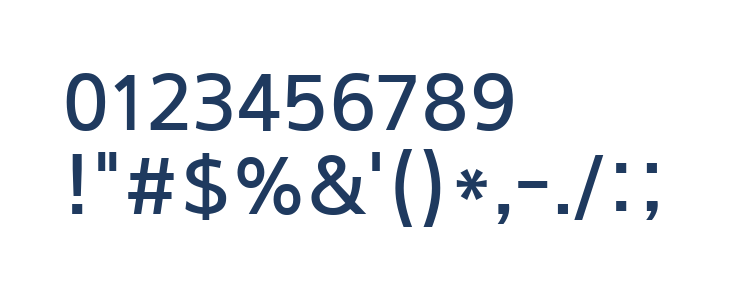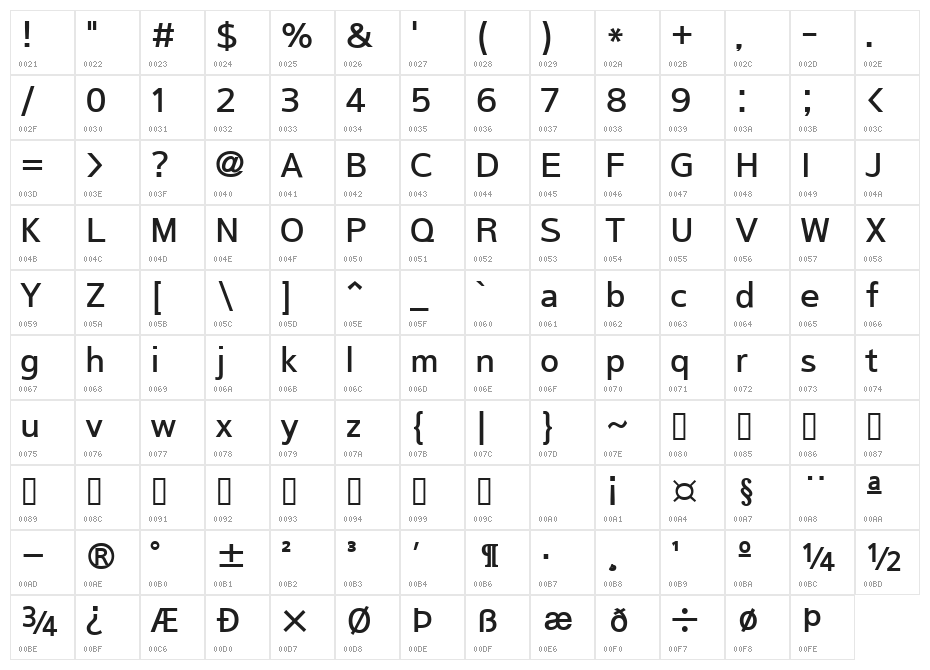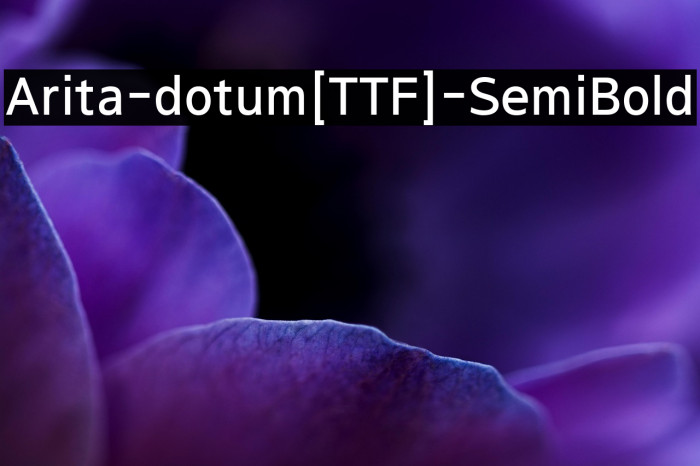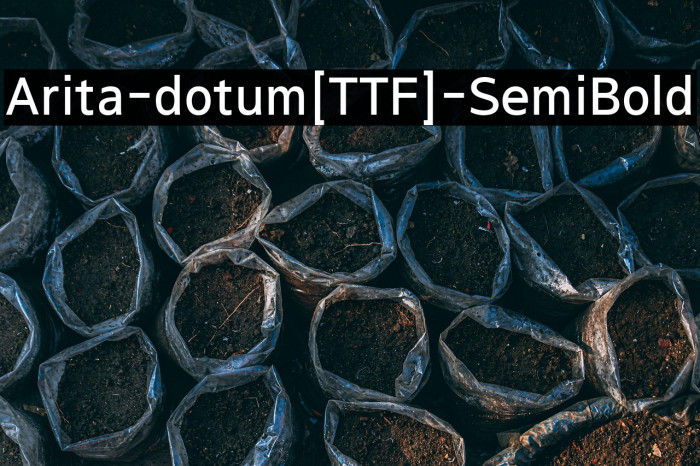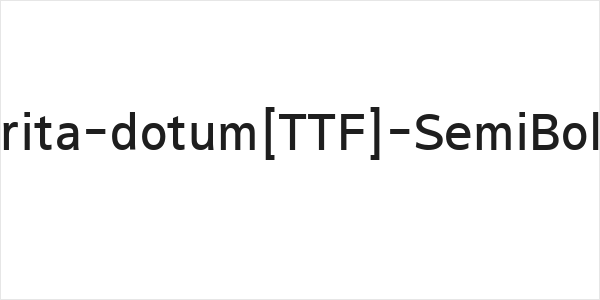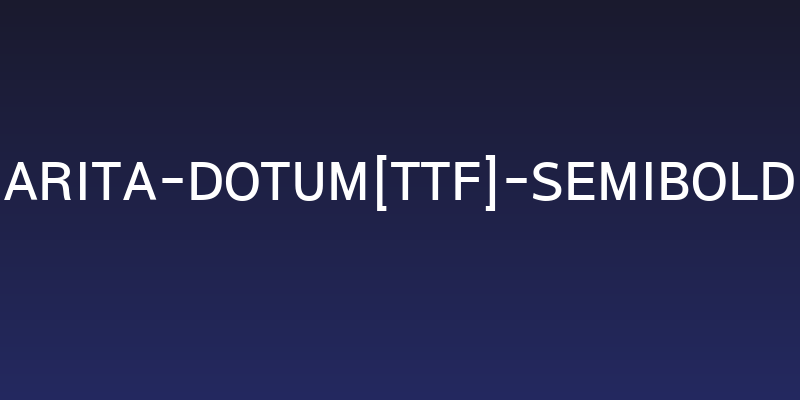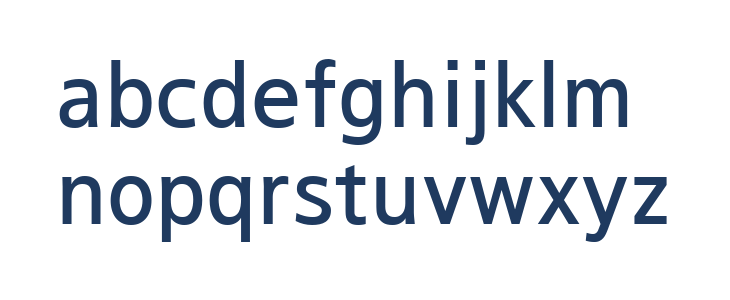
Arita-dotum[TTF]-SemiBold Font
Arita-dotum[TTF]-SemiBold Description
This font features a clean and modern sans-serif design with a semi-bold weight, offering a balanced and legible appearance. The characters are well-proportioned with a consistent stroke width, providing a harmonious and professional look. The uppercase and lowercase letters are distinct and clear, making it suitable for various applications. The numerals and special characters are designed to complement the overall style, ensuring readability and versatility.